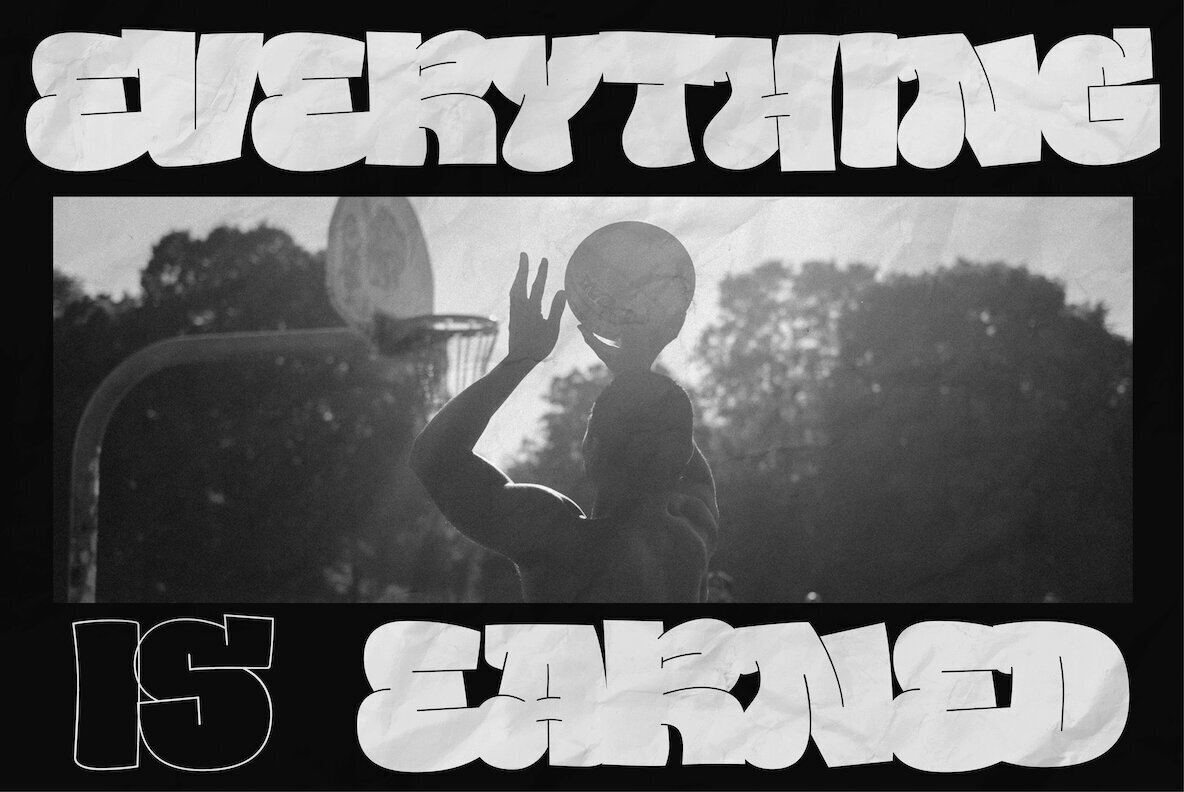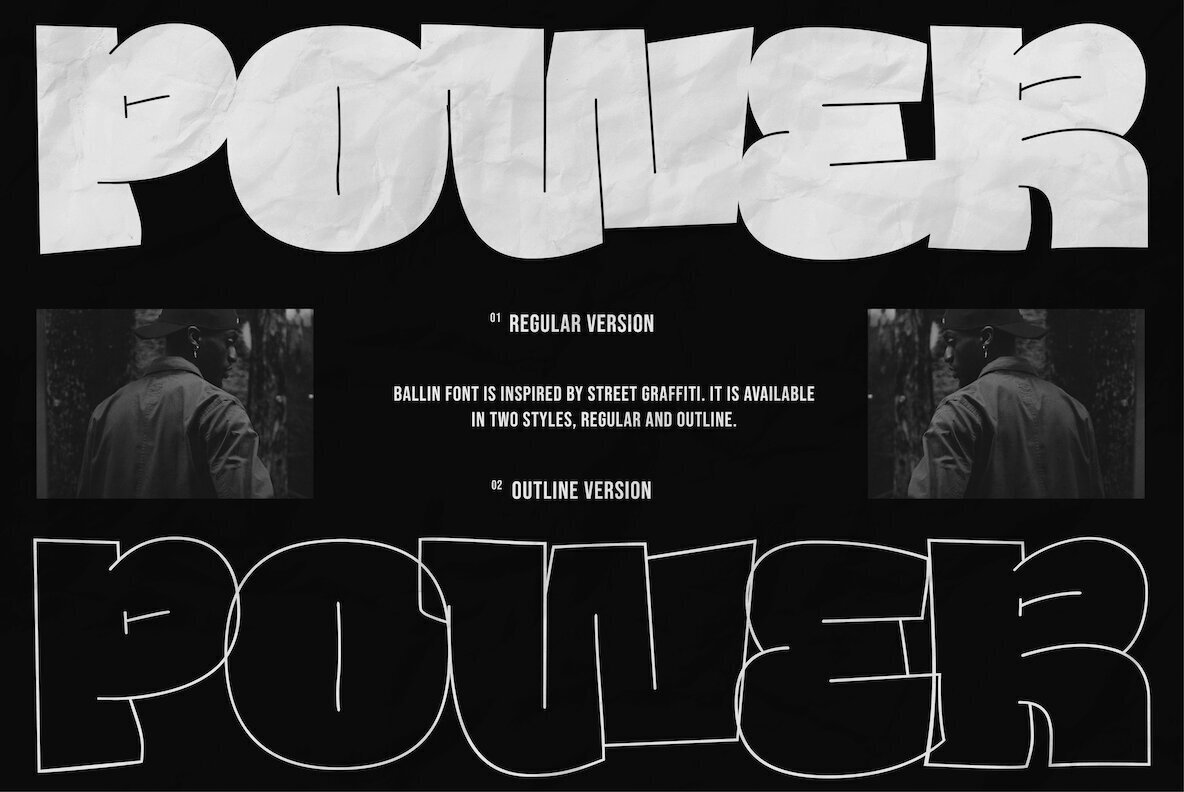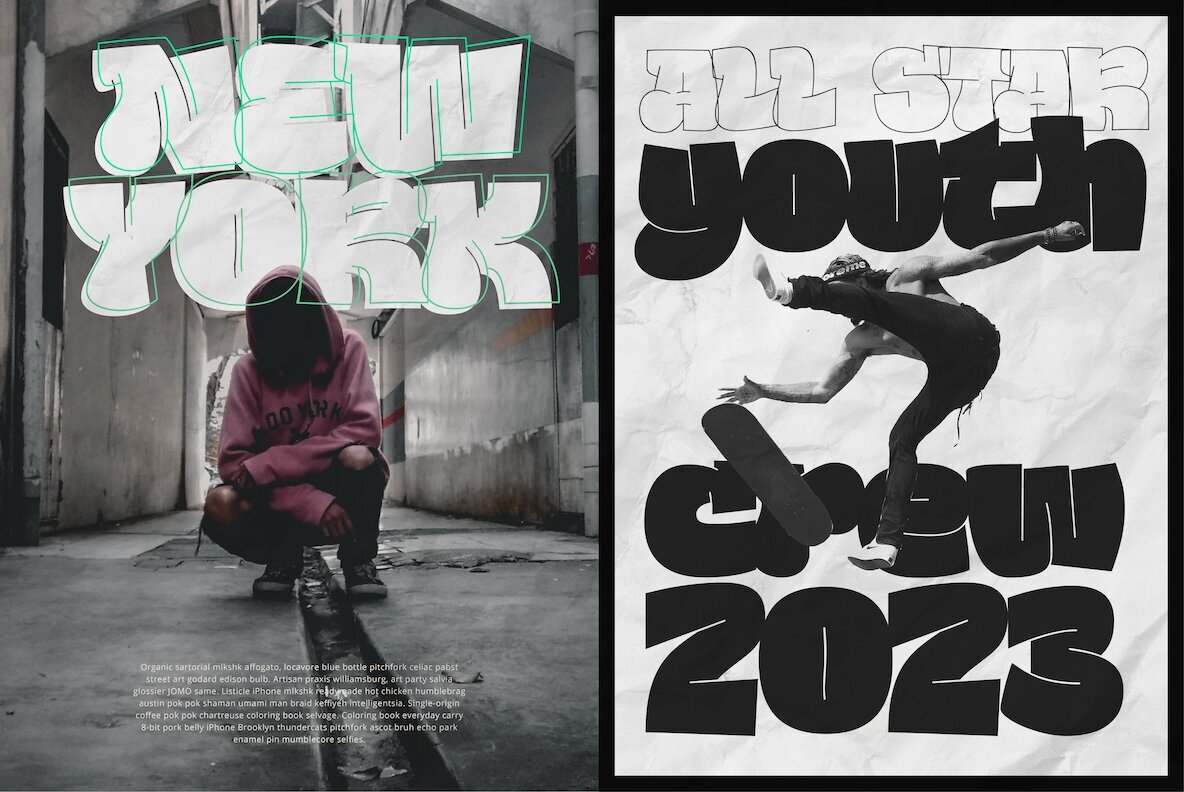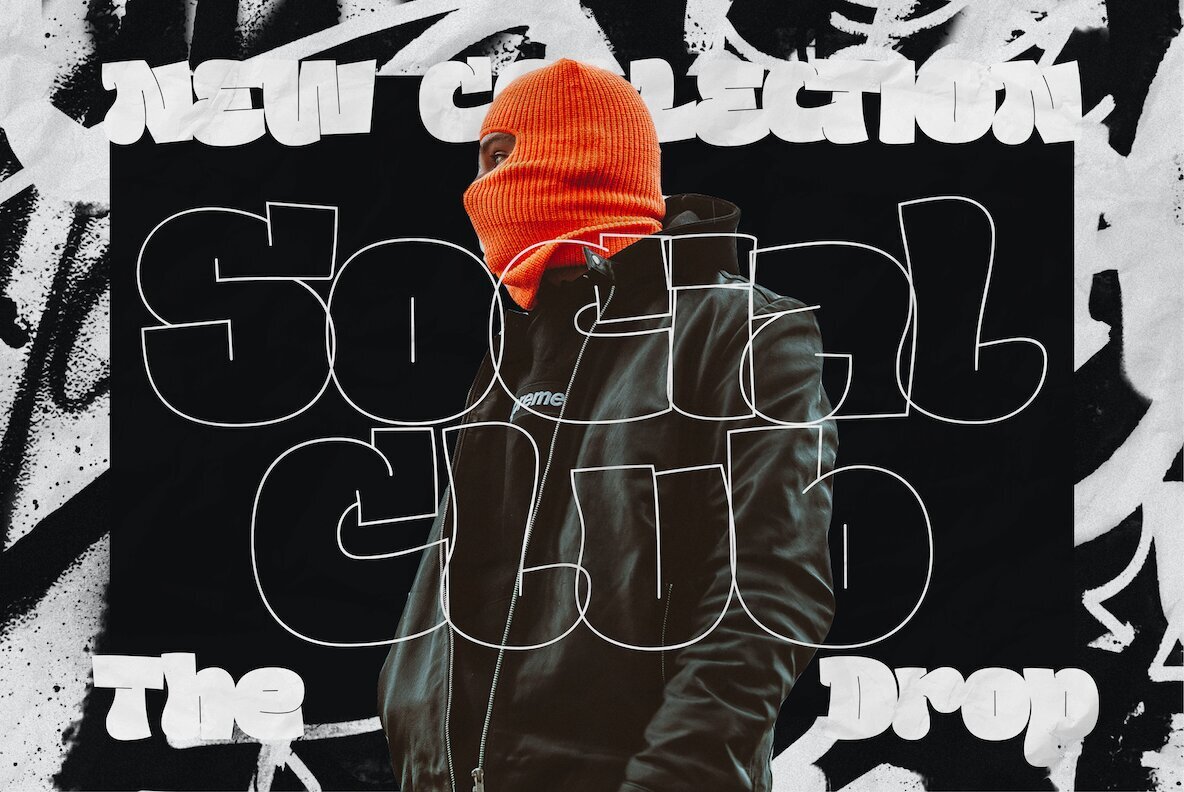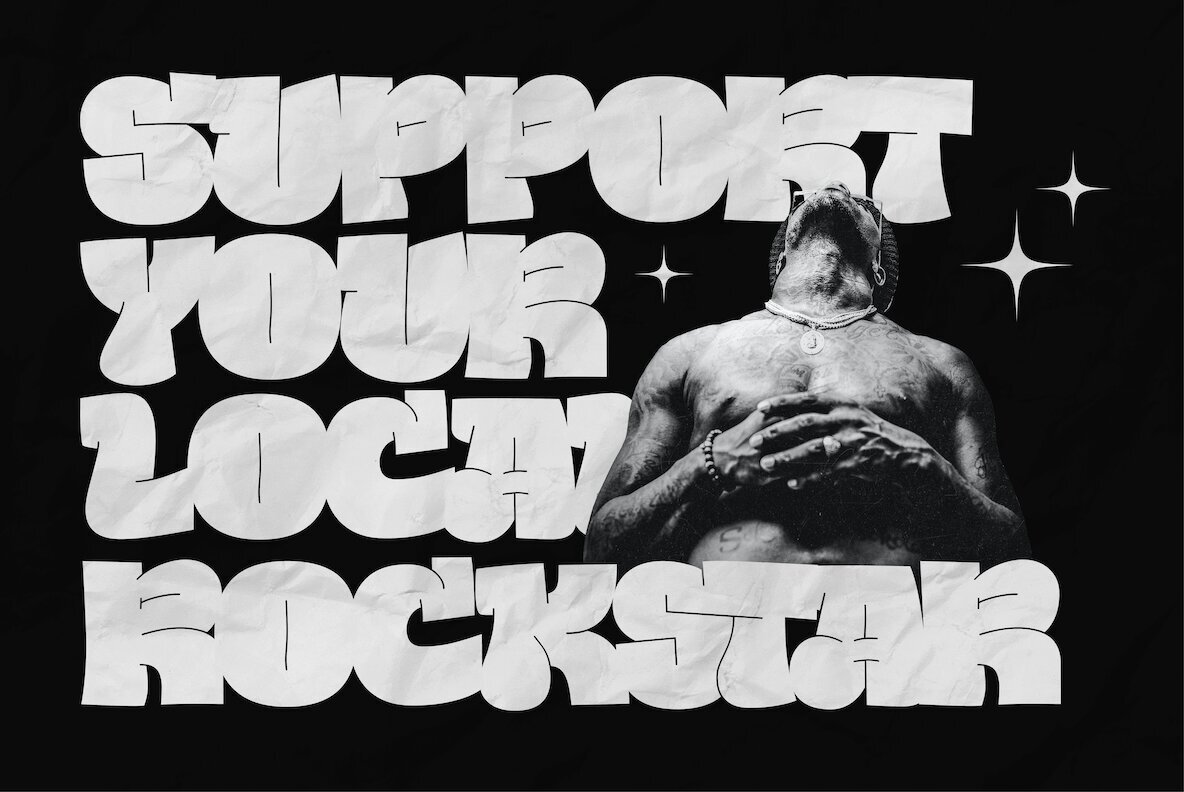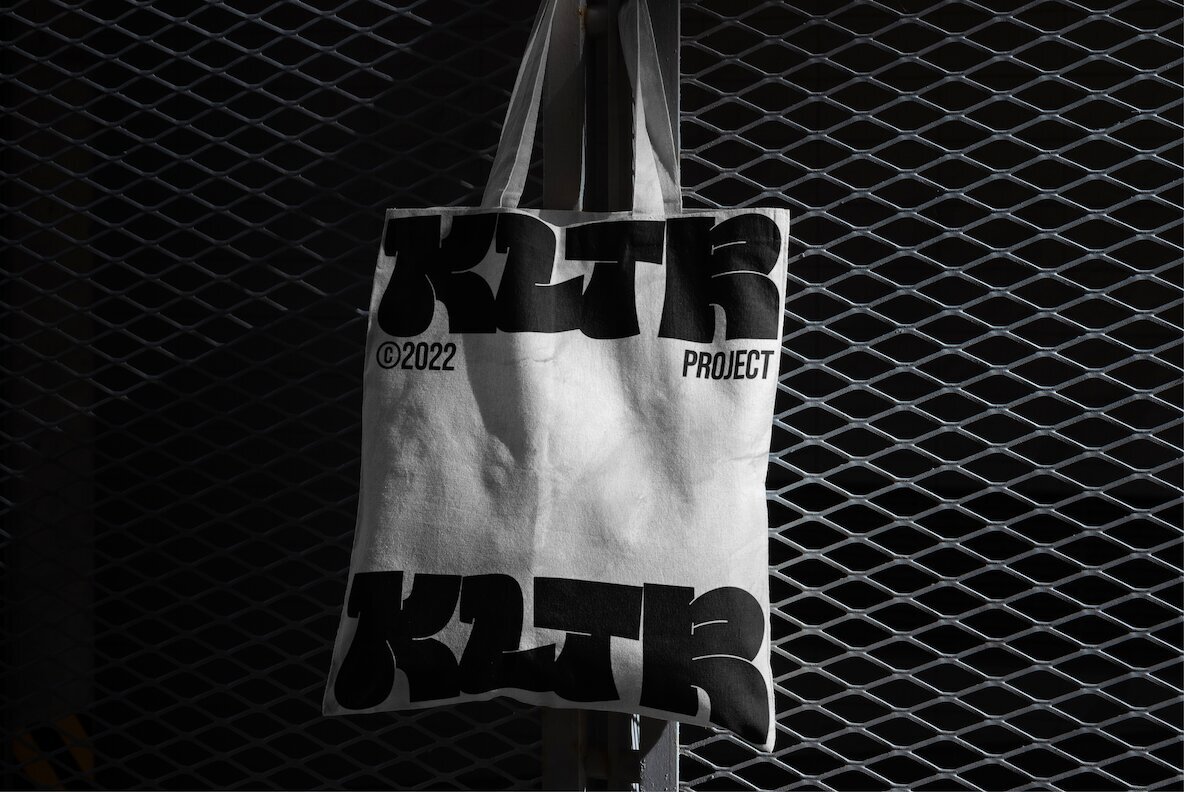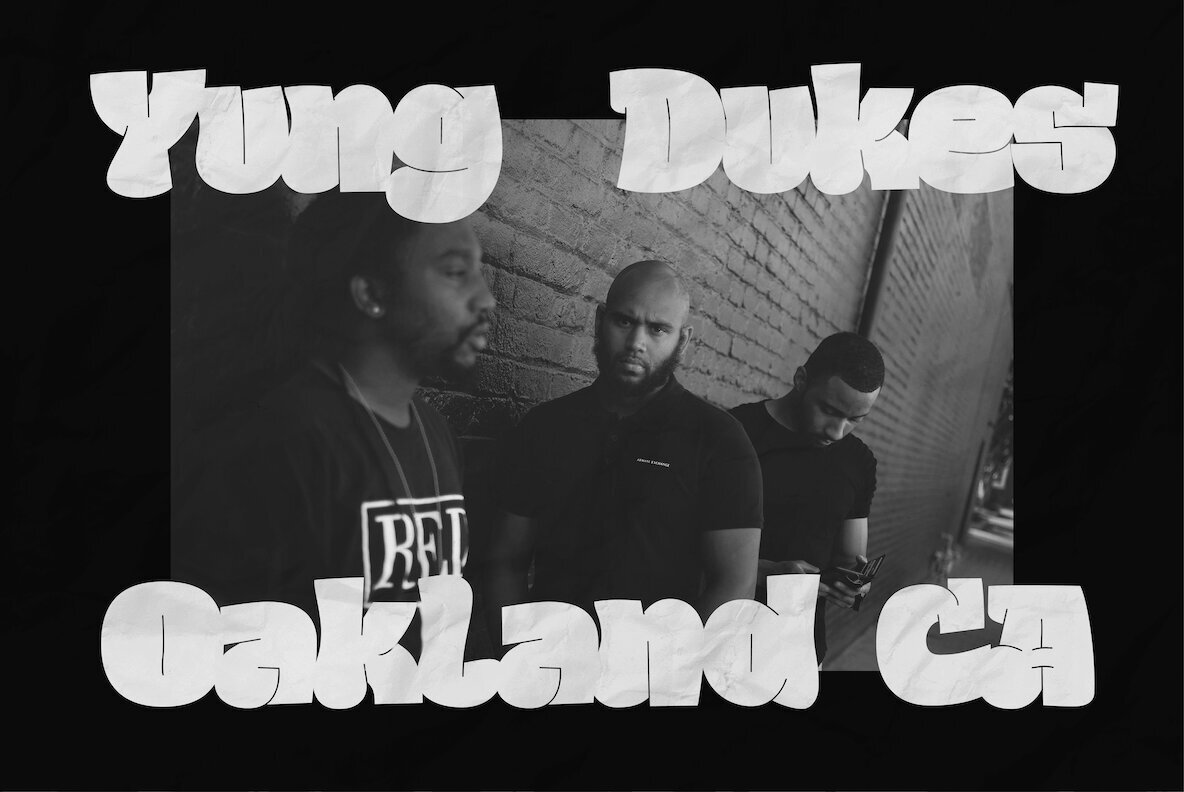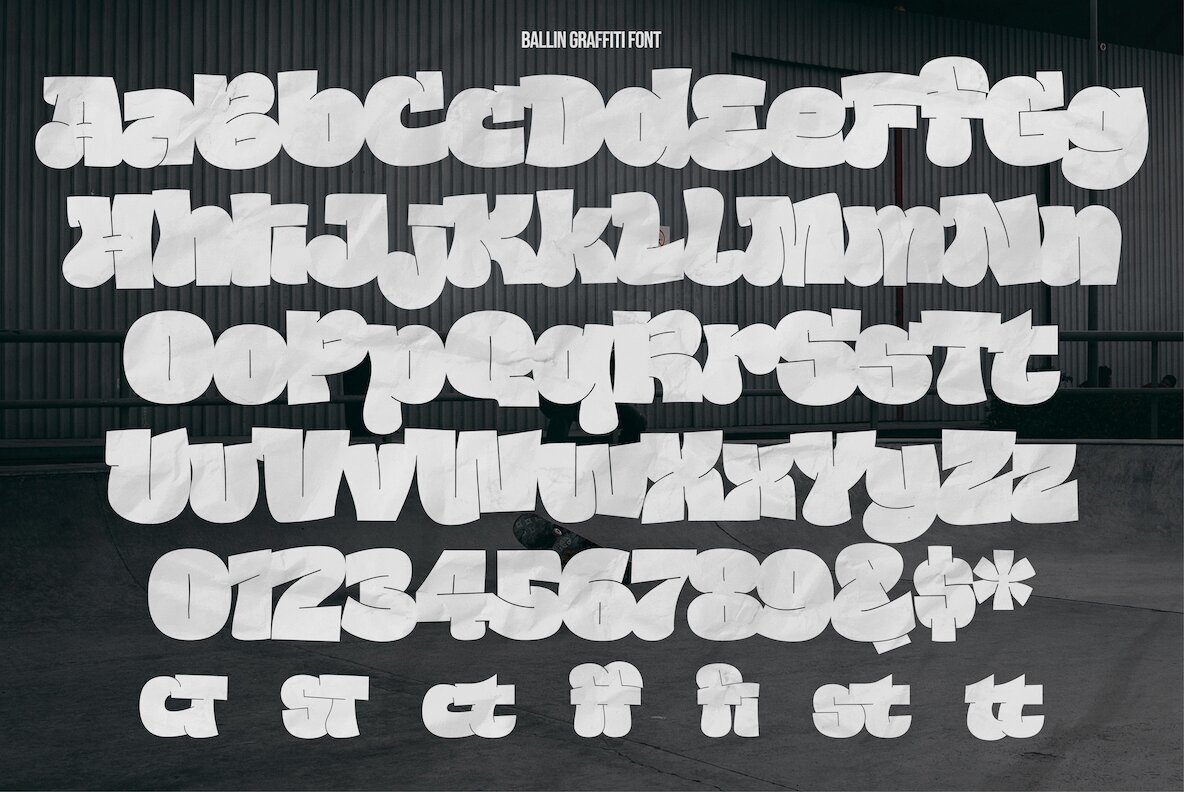
Ballin Font
Ballin is an iconic throwie style fonts created to capture the authentic street style look and feel. This graffiti font will infuse your designs with a raw, edgy energy that evokes powerful visuals that can into any fashion or digital design project.
With it's tight spacing and overlapping characters, Ballin will be sure to bring even more creativity and life to apparel projects, band merch, sports content and all other graphic design projects you can imagine!